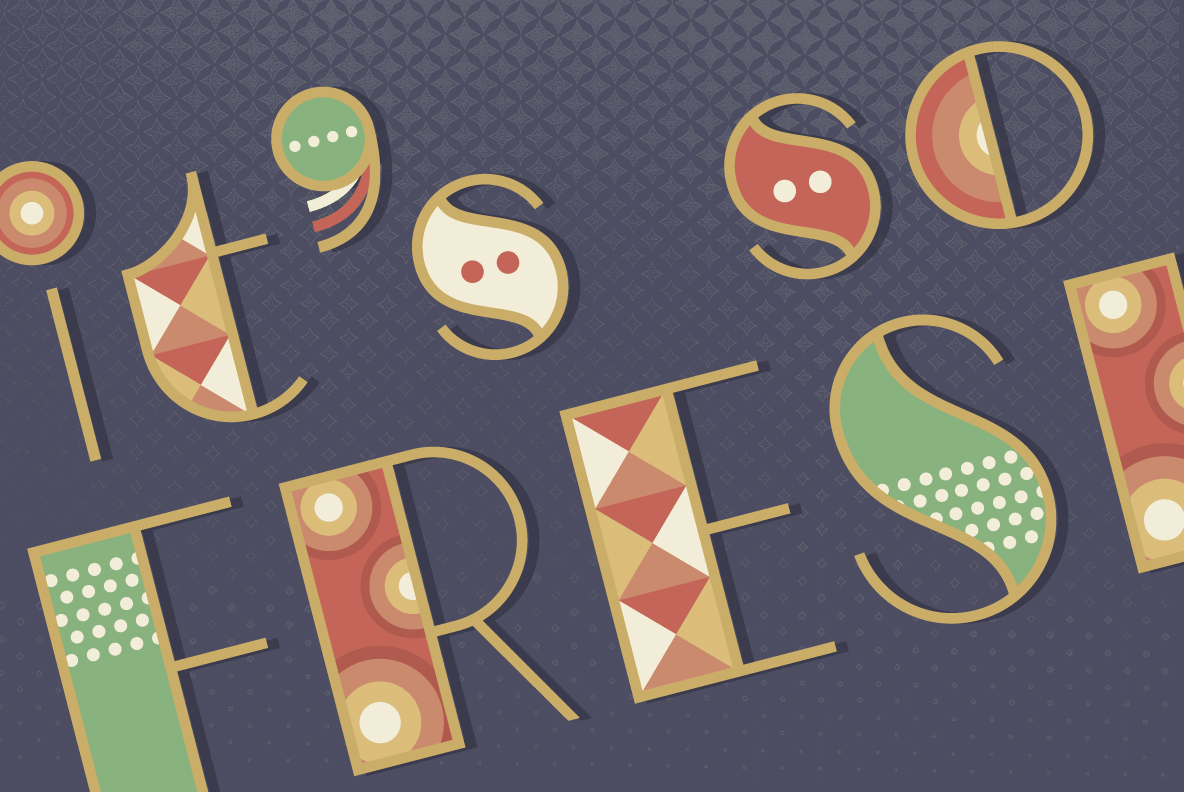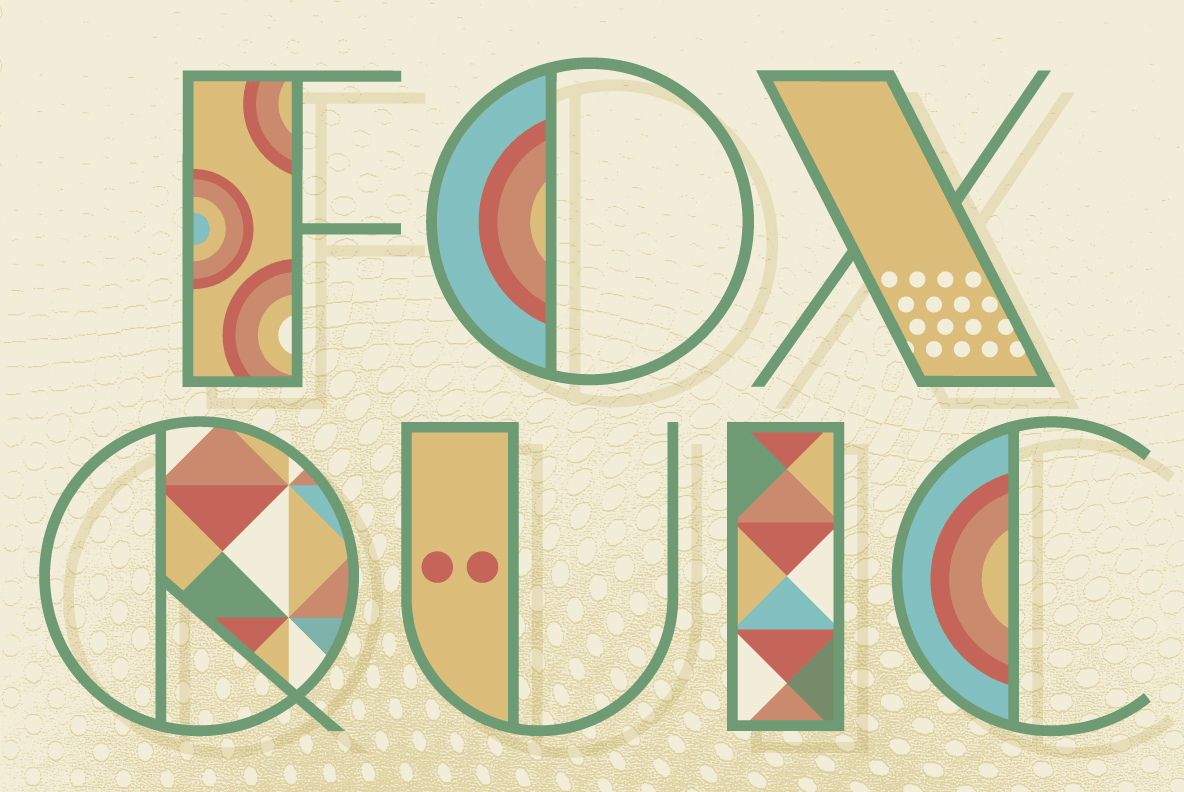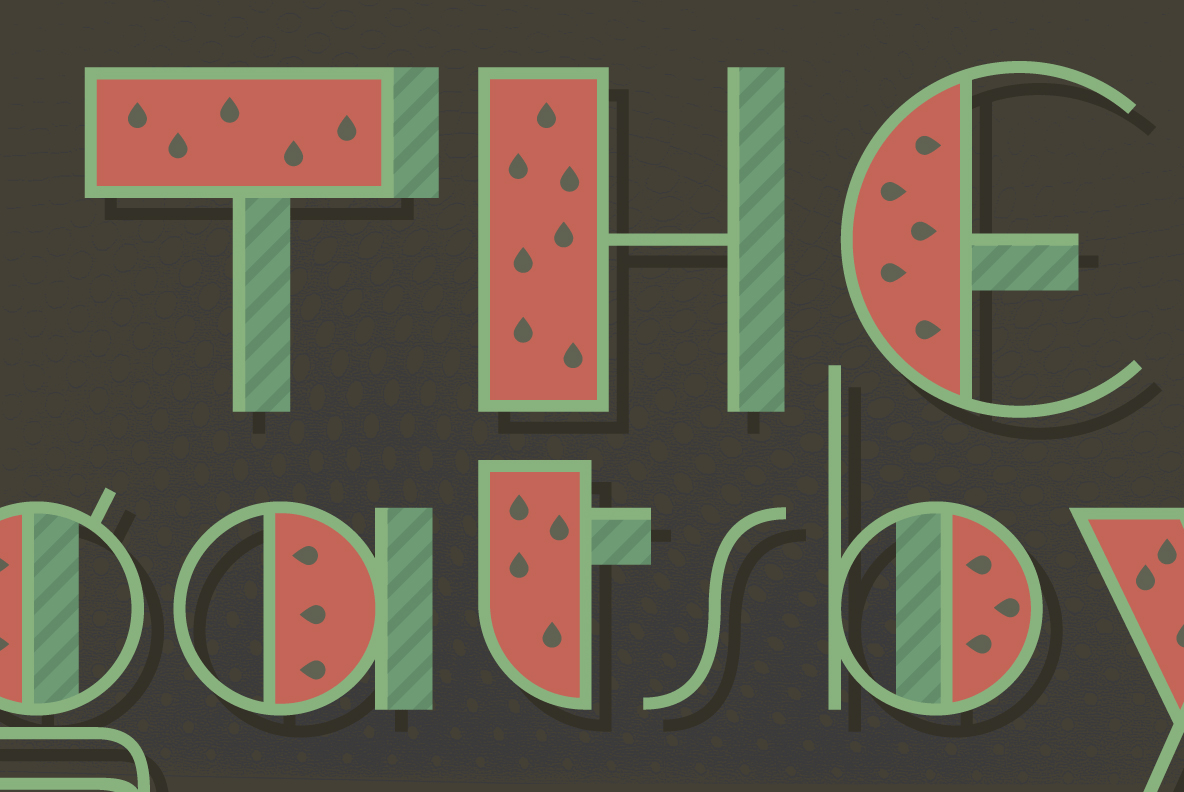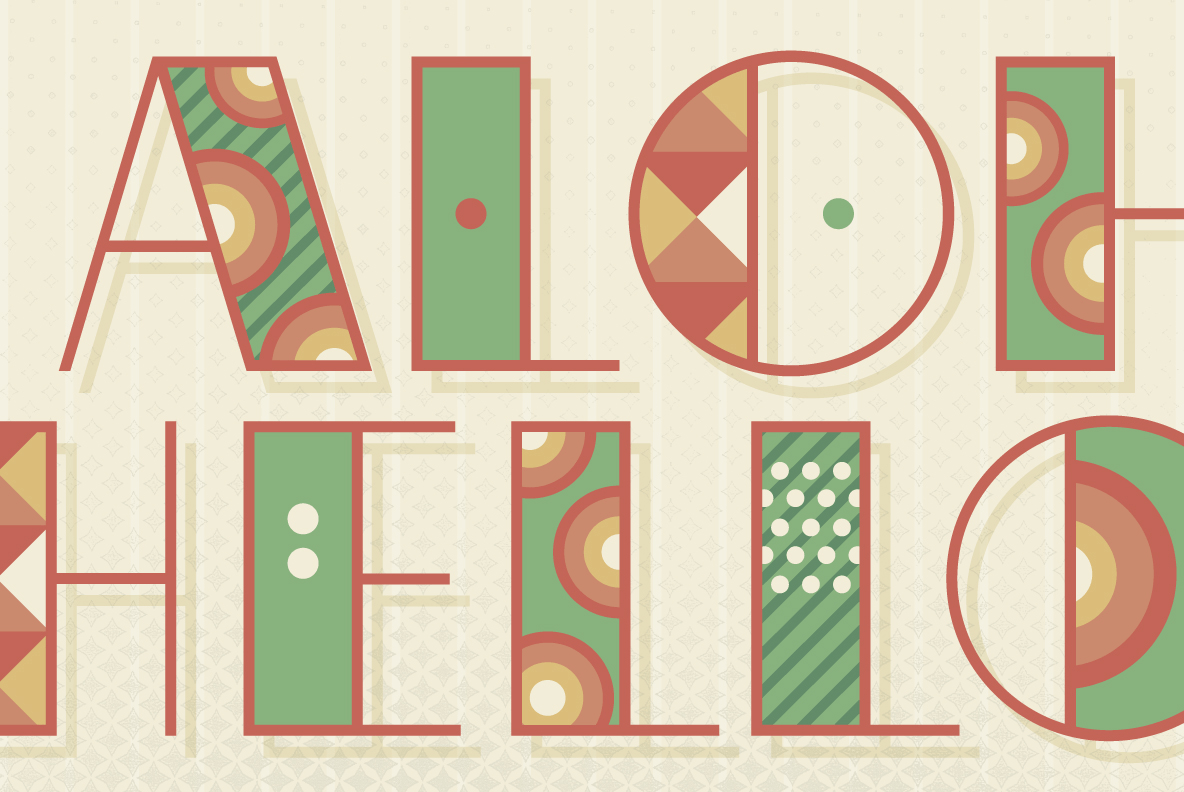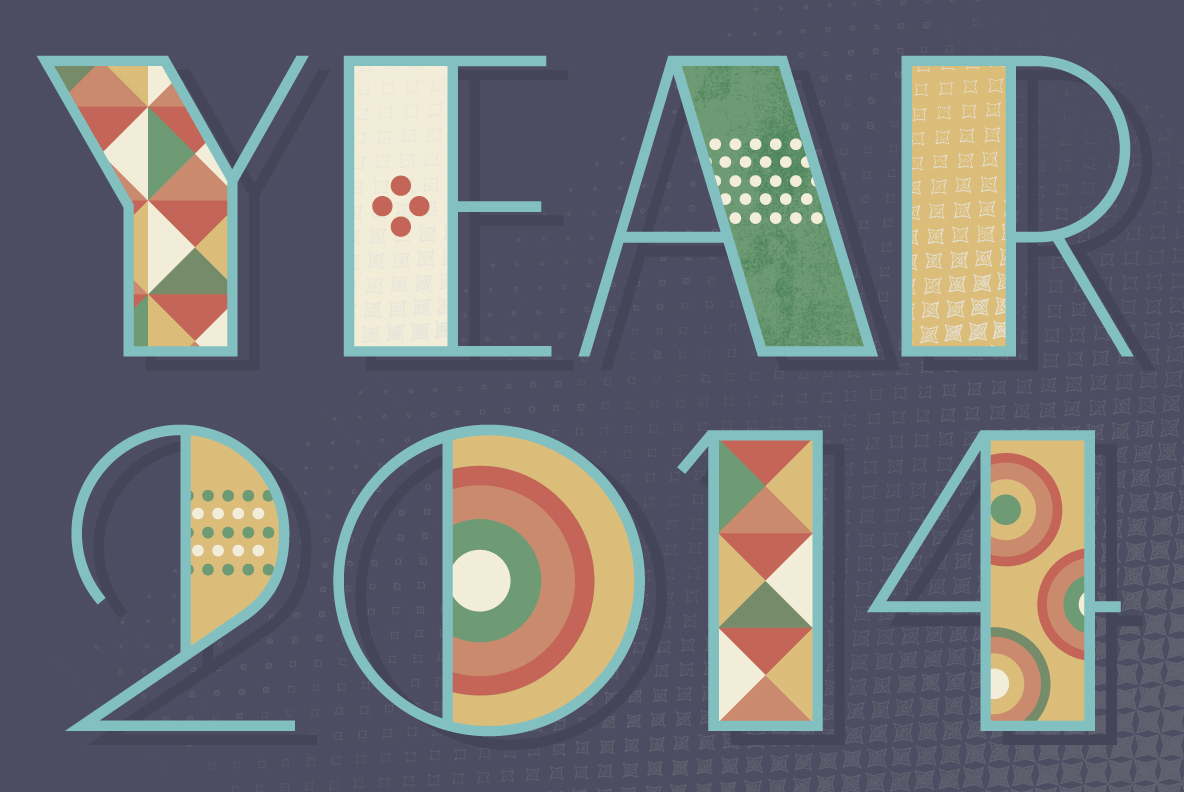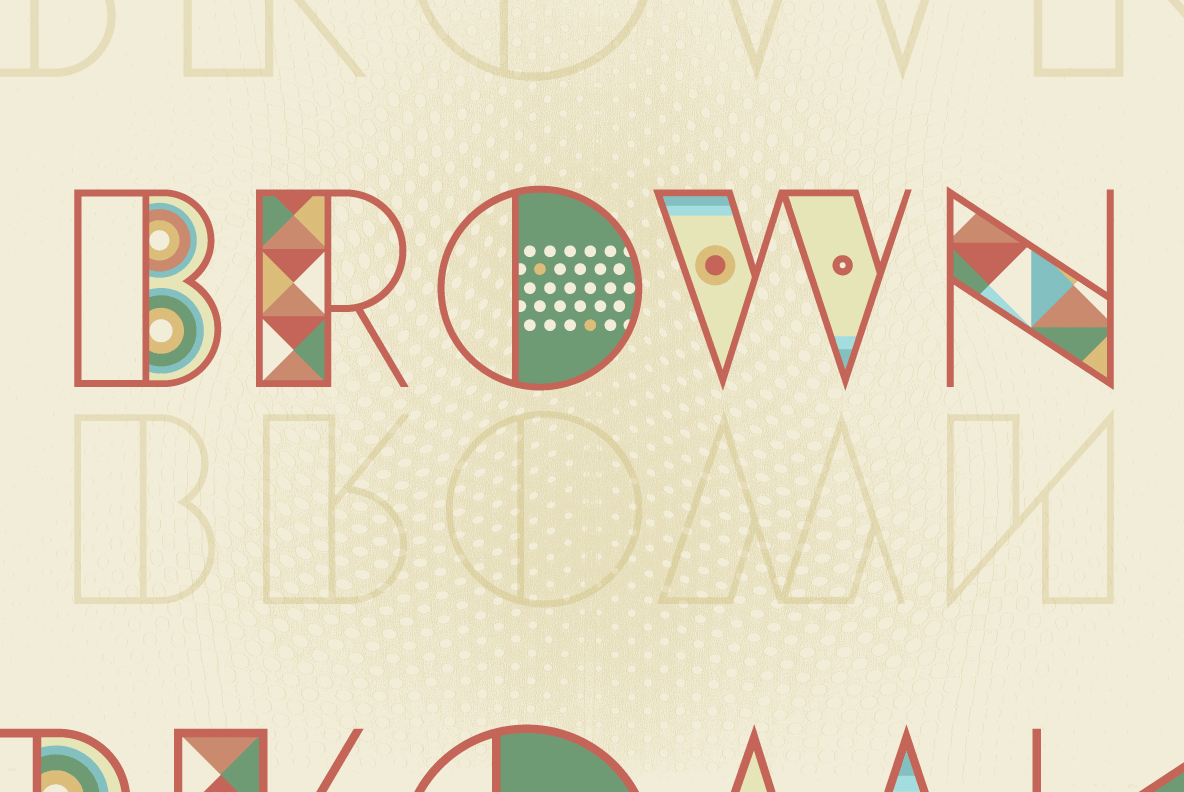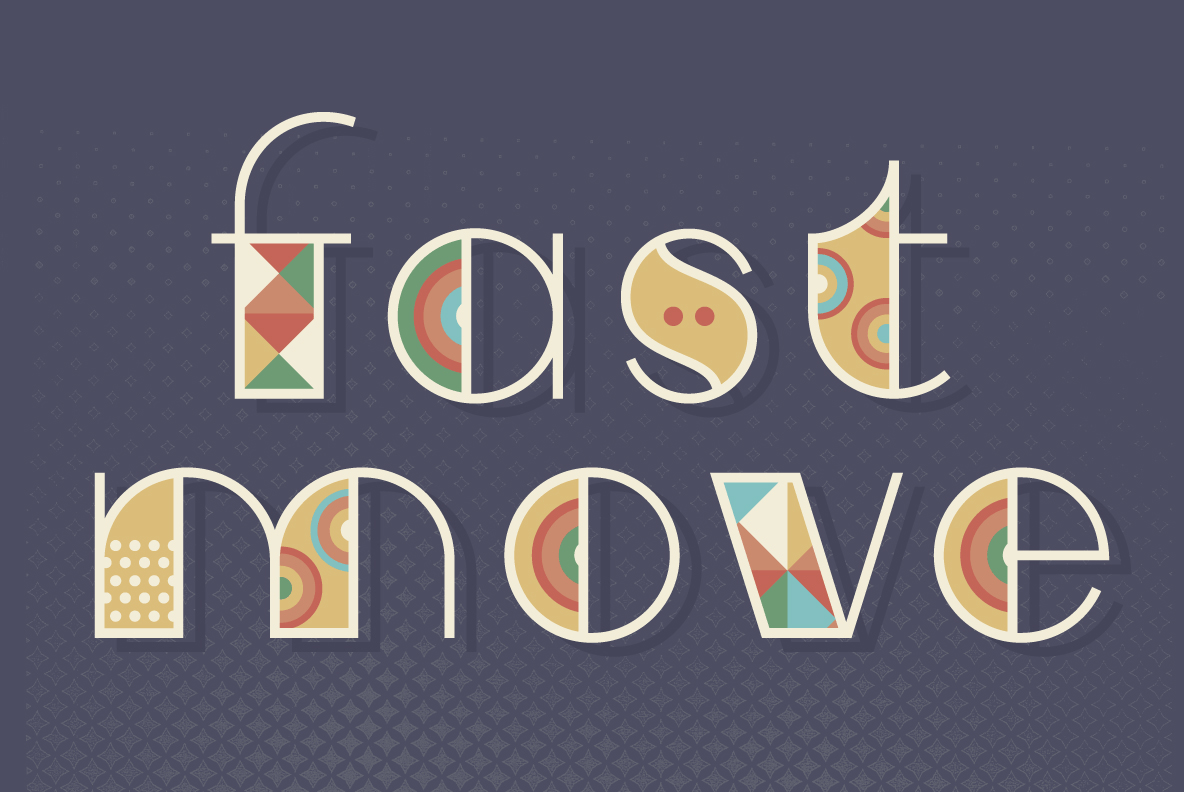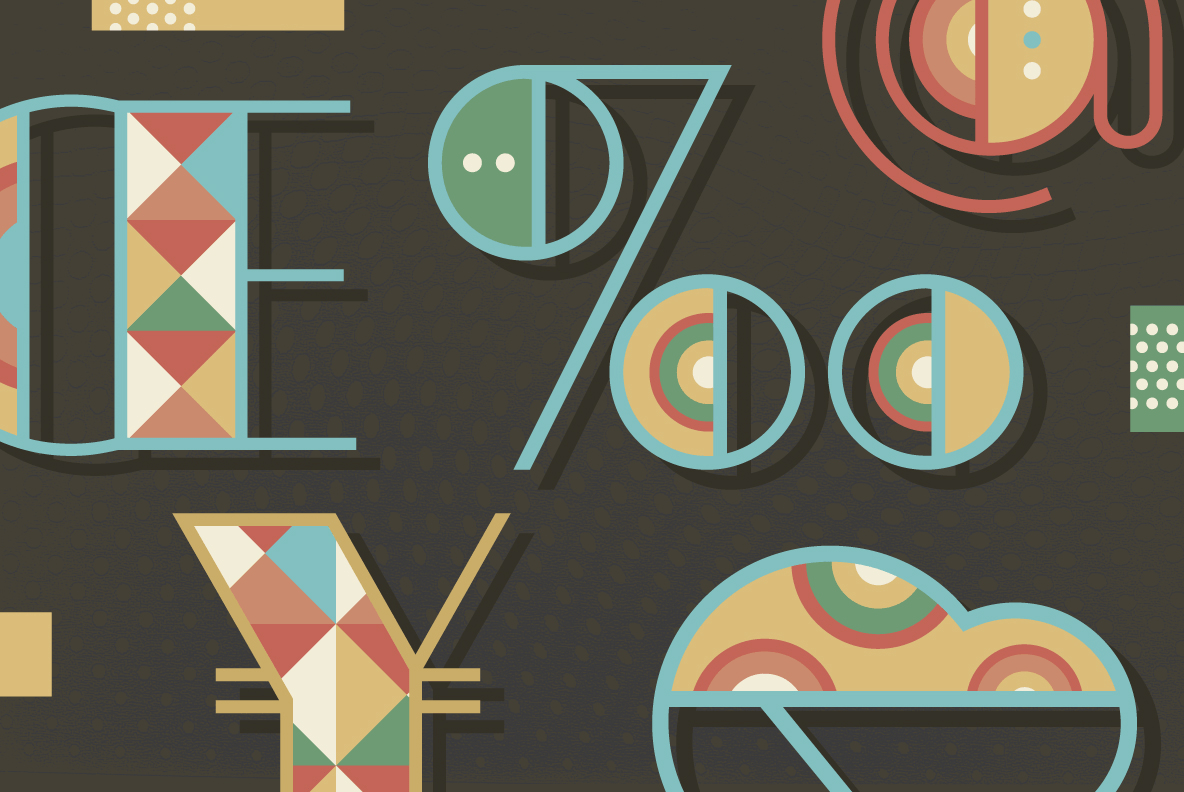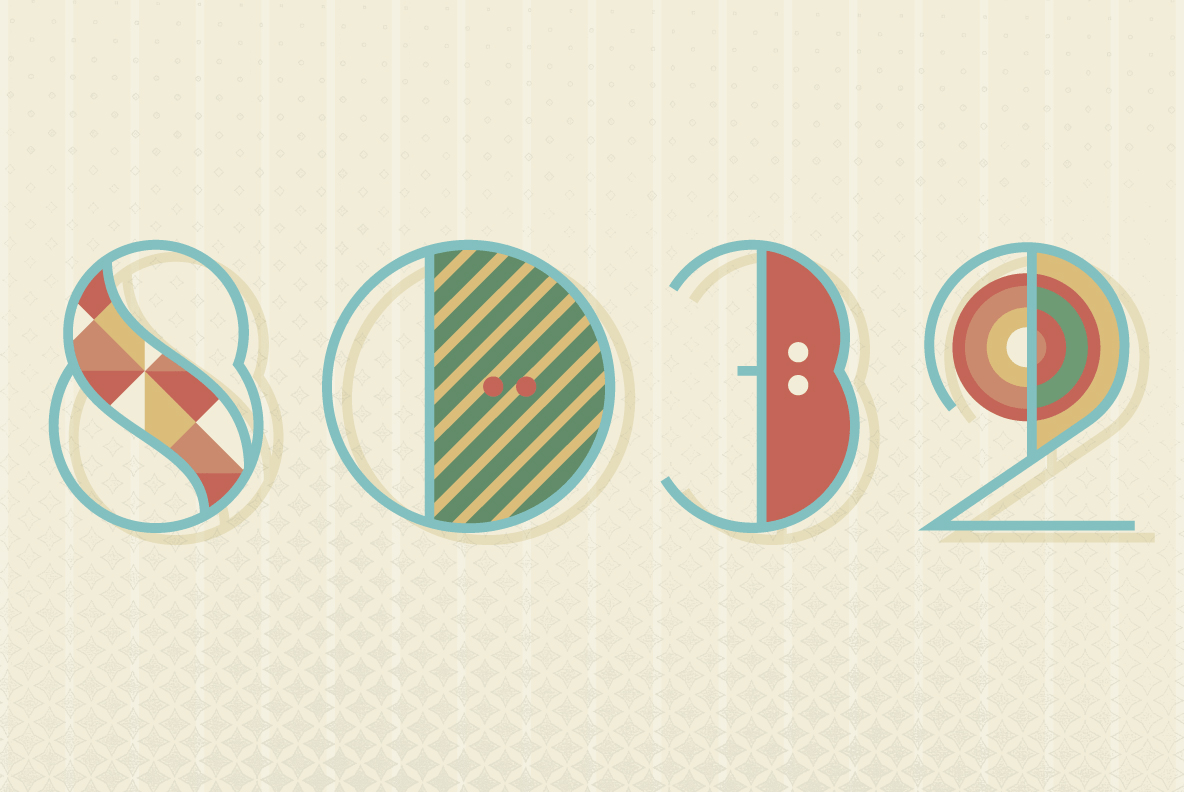
YWFT Pineapple
Font Family by YouWorkForThem
YWFT Pineapple is historically based in the Art Deco period (1920s/30s) but set adrift for awhile and spiced with the rum of the present. YWFT Pineapple is suitable for many uses, but has an affinity for being juxtaposed with unfamiliar contexts such as art, fashion, and literature.
YWFT Pineapple features many alternates and a few ligatures for such characters as MA, AW, AV, and tt.
YWFT Pineapple was designed and released by YouWorkForThem in 2009.